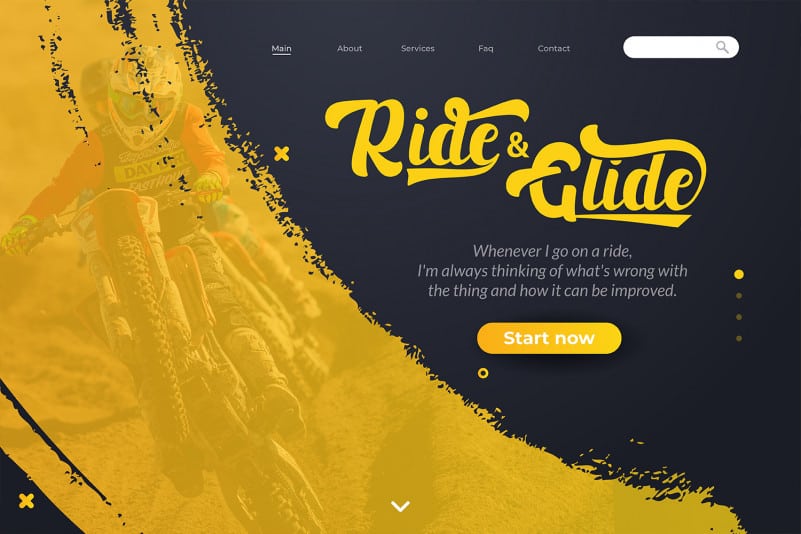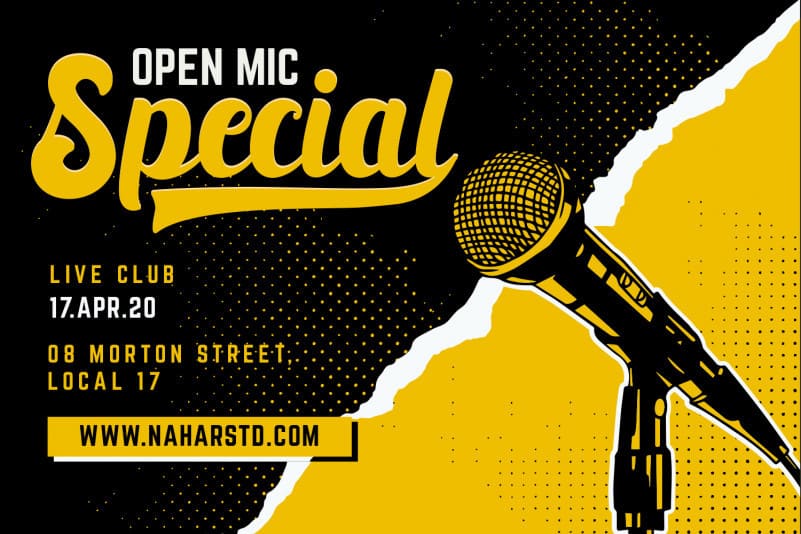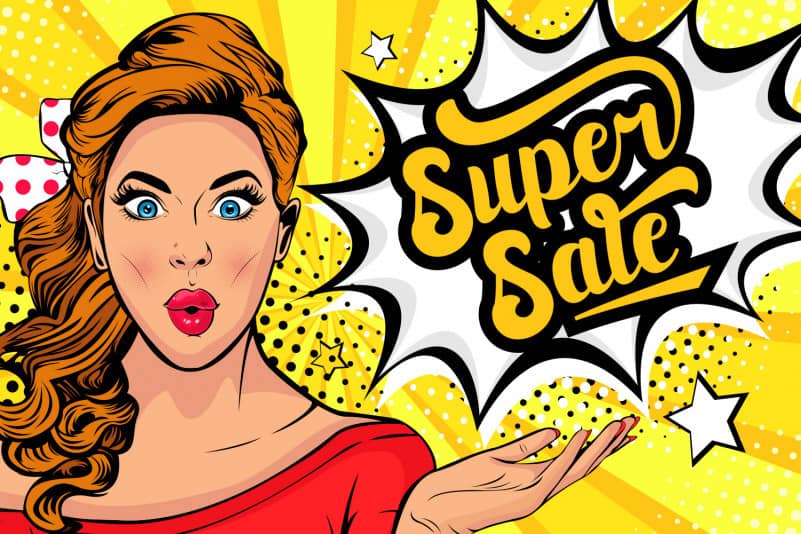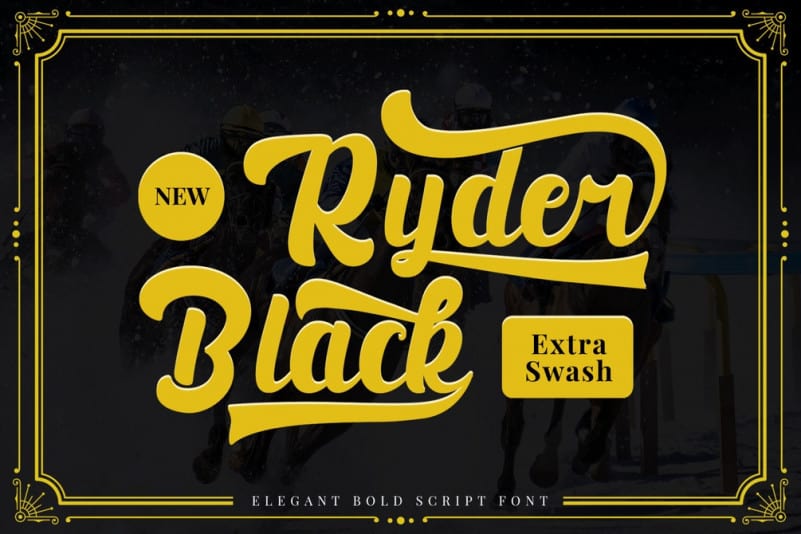
Black Ryder bold script font with smooth curves is great for Branding, Logo Design, Lettering, Logotype, Clothing, Poster, magazine, packaging, posters, shopping bags, t-shirts, book covers, photography, special events, and another design project.